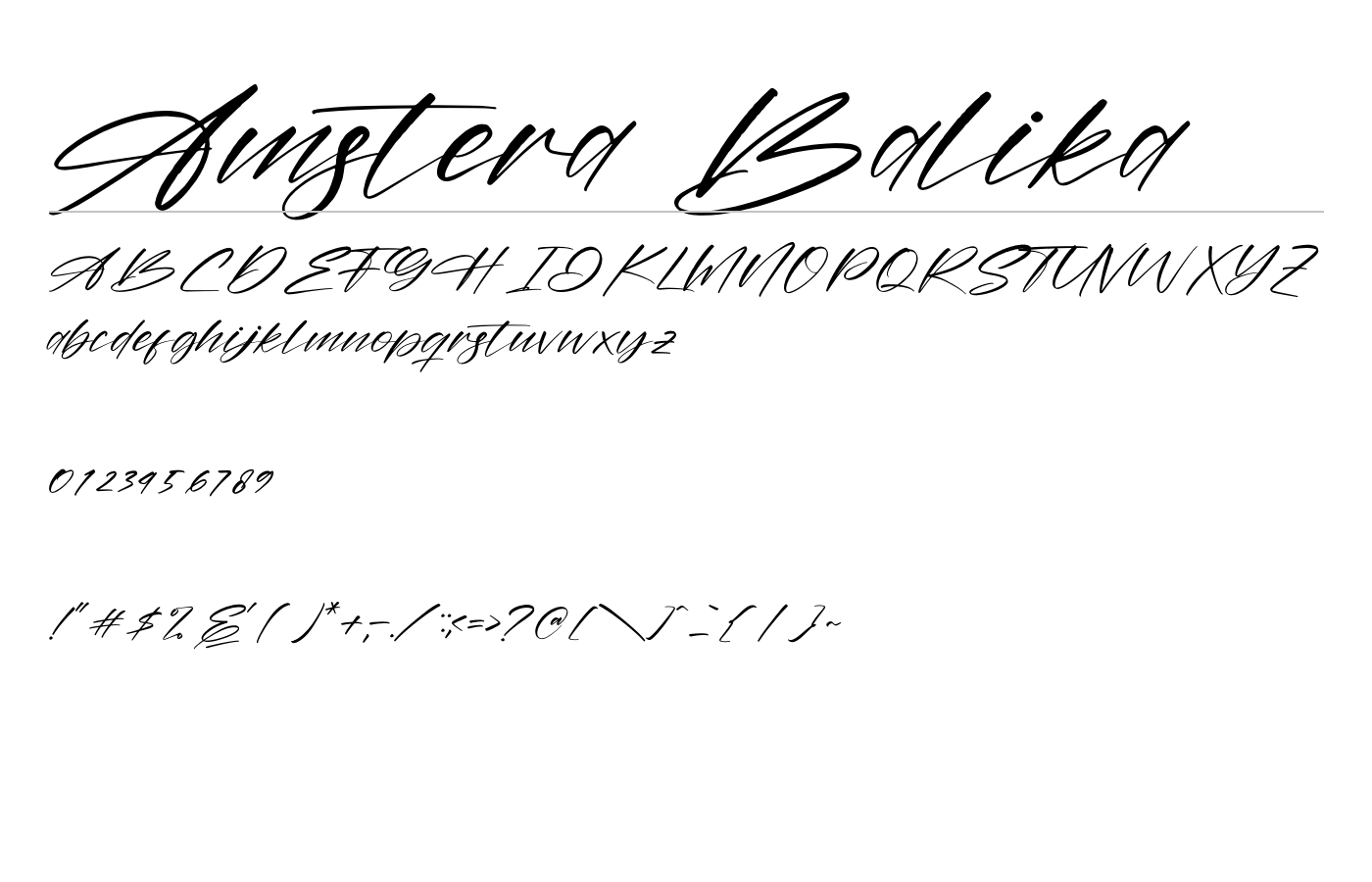
Amstera Balika is an elegant script font with a flowing, handwritten style that combines both refined and casual elements. Its slender, slightly slanted letterforms and smooth, calligraphic strokes give it a graceful, personal feel perfect for invitations, branding, and editorial designs that seek a touch of sophistication and charm. This font works well where stylish, readable script is needed to convey warmth and elegance.
Amstera Balika Font
About Amstera Balika Font